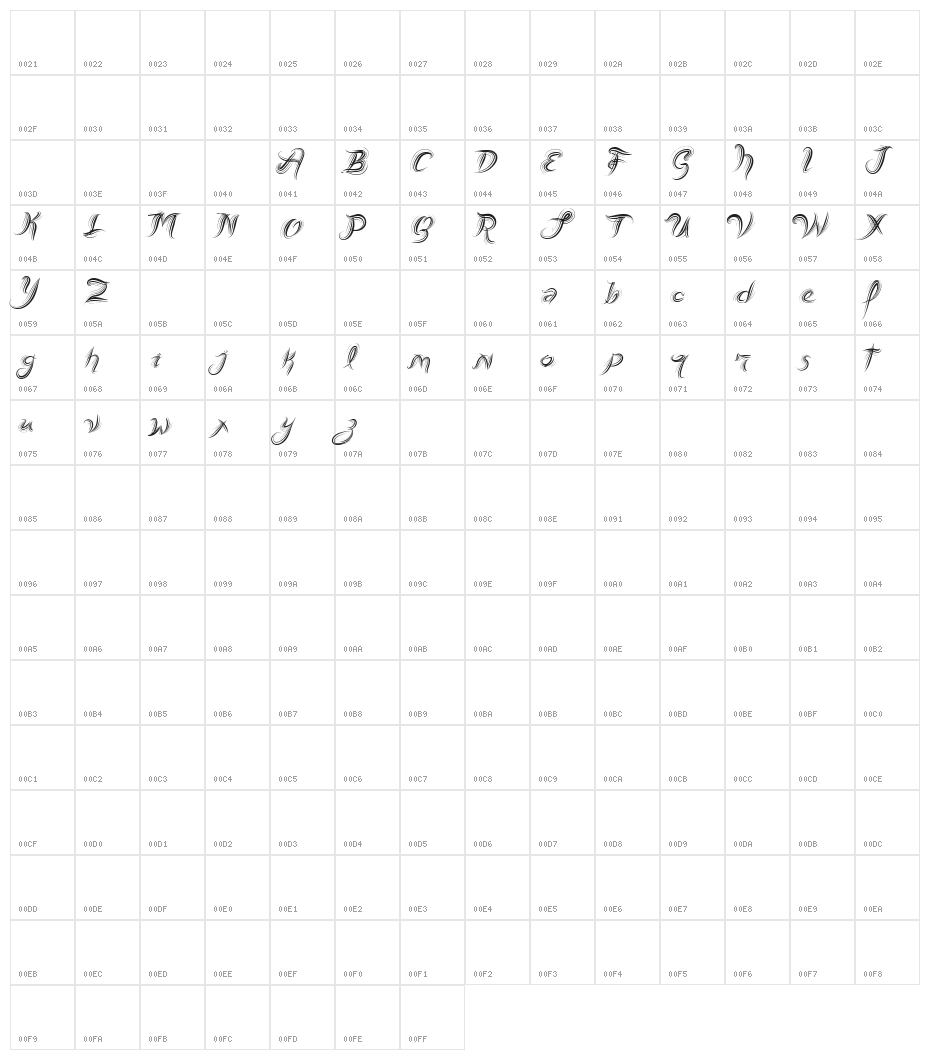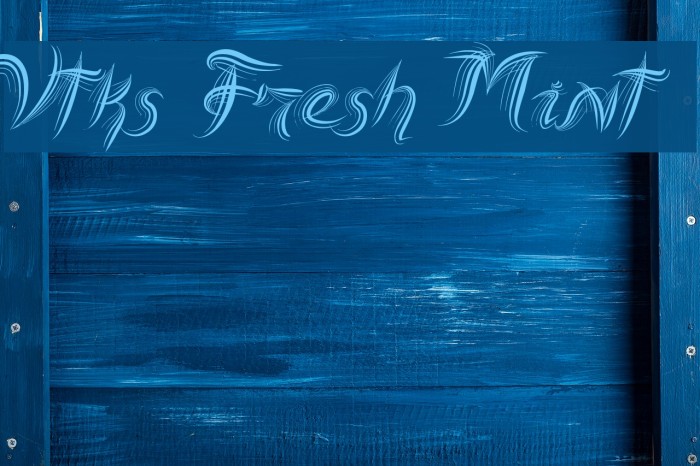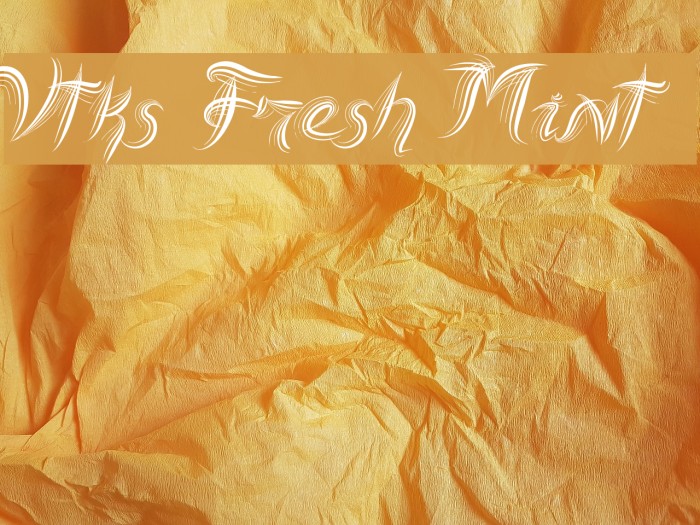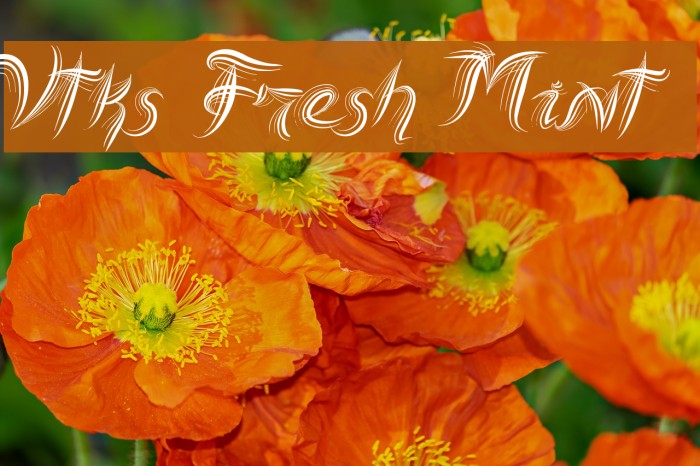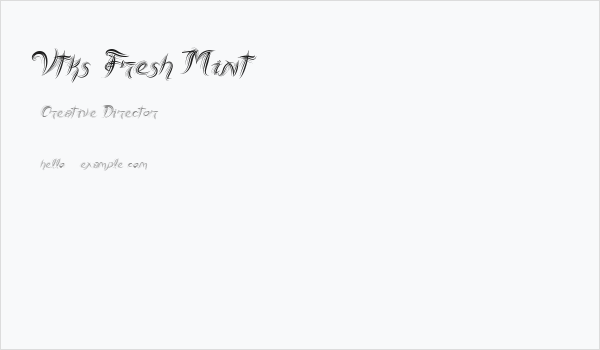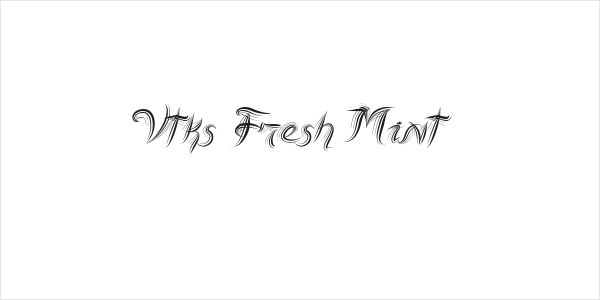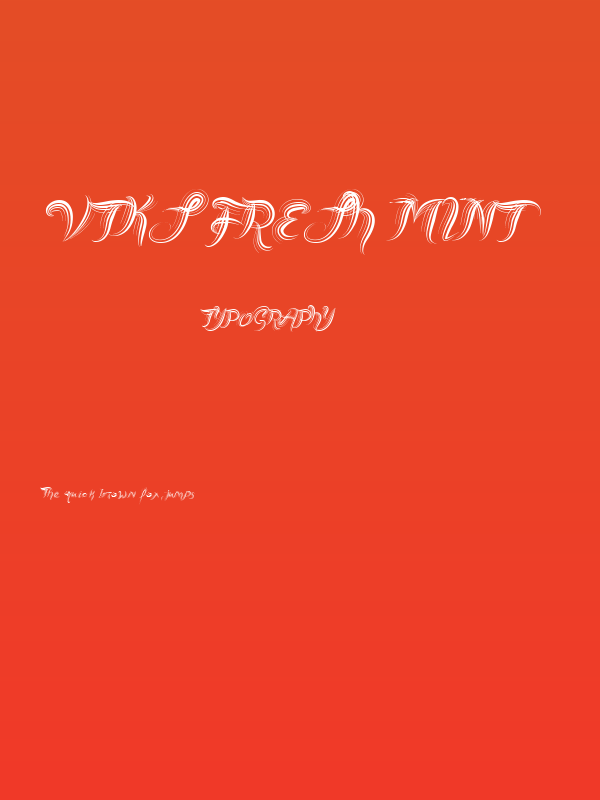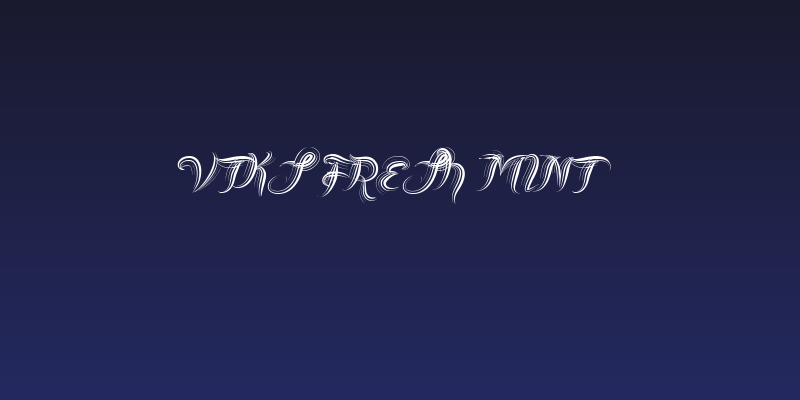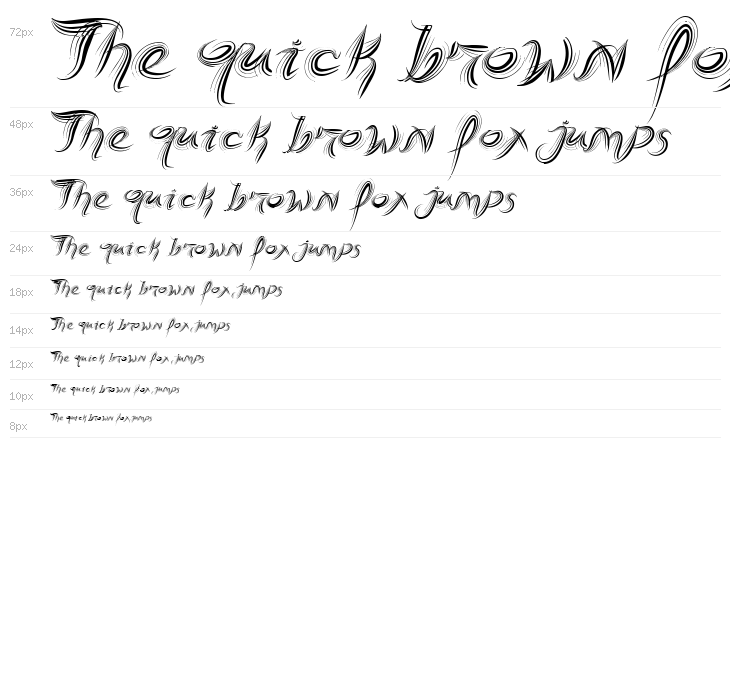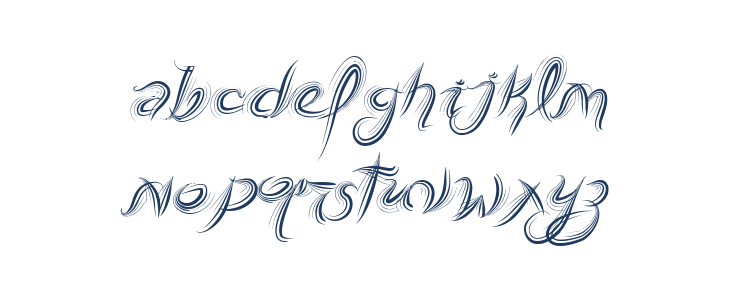
Vtks Fresh Mint Font
Vtks Fresh Mint Description
This font features an intricate and artistic design with swirling, fluid strokes that give it a dynamic and energetic appearance. The characters are crafted with a sense of movement, incorporating flowing lines and curves that create a sense of rhythm and motion. Each letter is unique, with varying thicknesses and decorative elements that add to the overall visual interest. The font's style is reminiscent of calligraphy, with a modern twist that makes it suitable for creative and expressive projects. Its elaborate design makes it stand out, providing a strong visual impact.
| Use Case | Logos, Headlines, Artistic designs |
| Proposed Projects | Ideal for creative projects such as posters, invitations, branding, and artistic designs where a bold and expressive font is needed. |